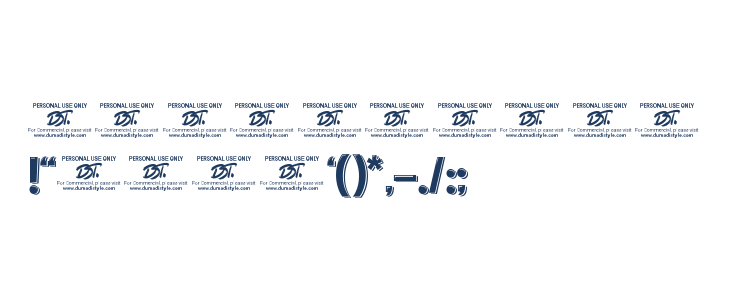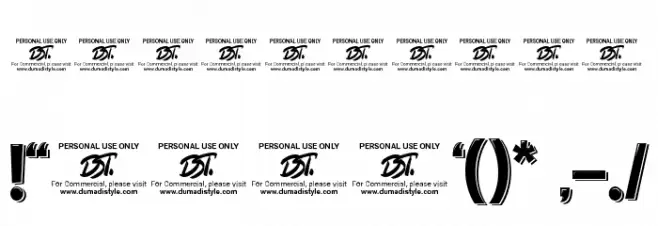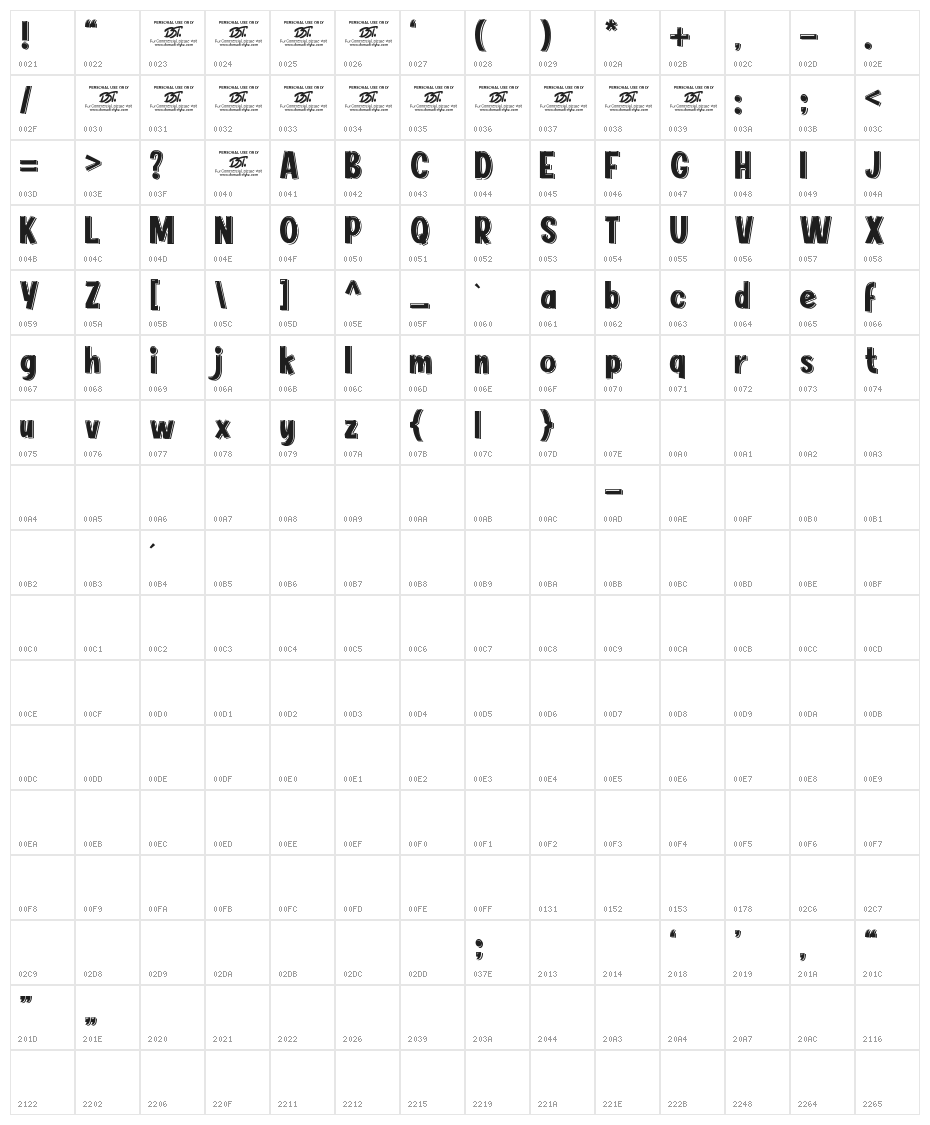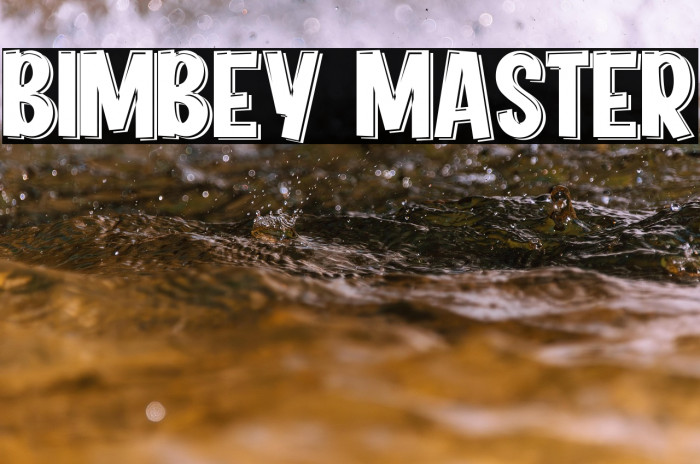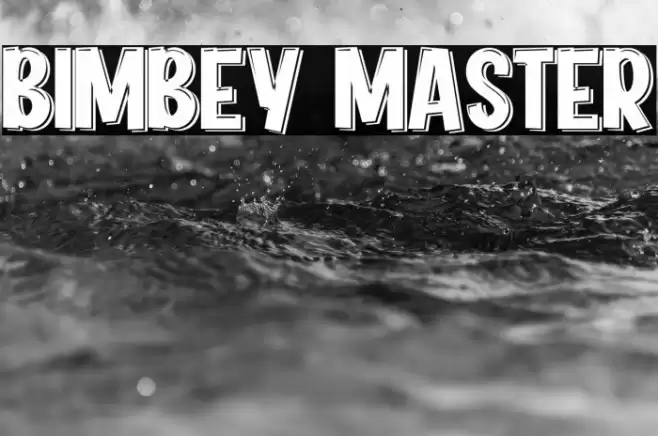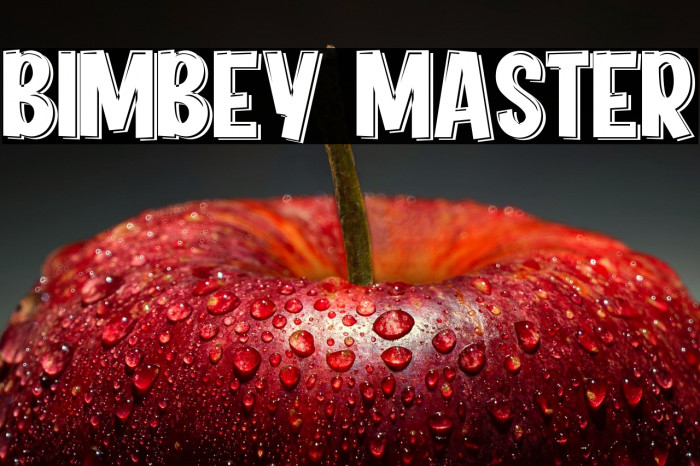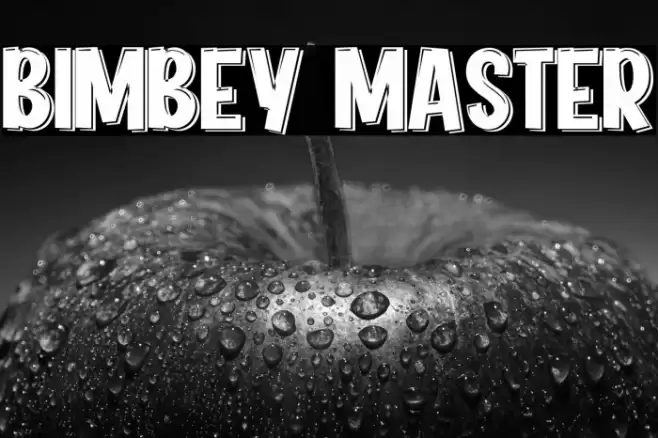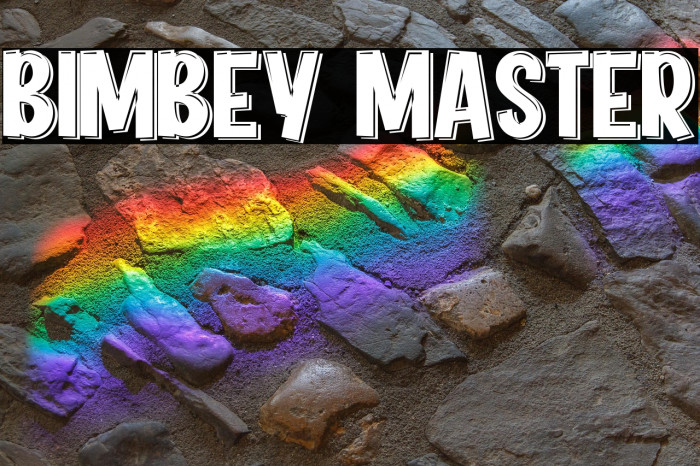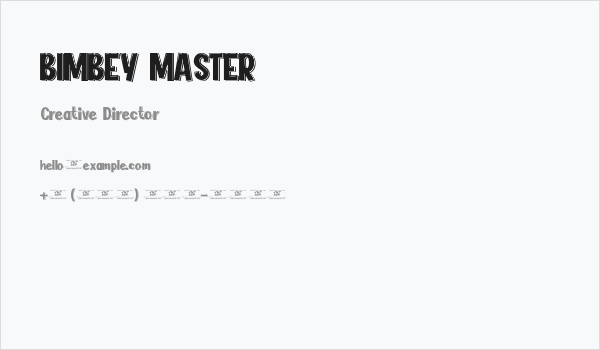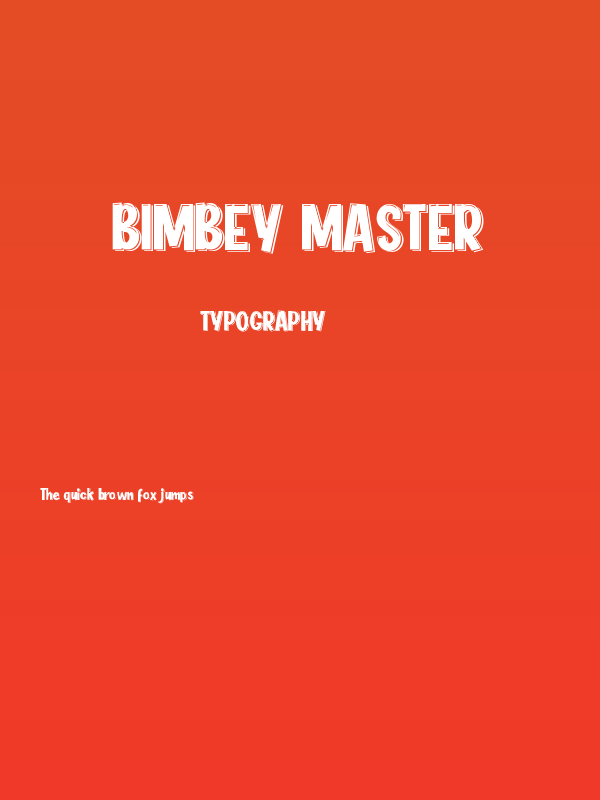
BIMBEY MASTER Font
BIMBEY MASTER Description
This font features a bold and dynamic style with a strong presence. The characters are thick and have a three-dimensional effect, giving them a shadowed appearance that adds depth. The uppercase and lowercase letters maintain a consistent weight, enhancing readability while providing a unique visual impact. The font includes a full set of uppercase and lowercase letters, numbers, and a selection of special characters. Its boldness and distinct style make it suitable for attention-grabbing designs.
Proposed ProjectsIdeal for posters, headlines, logos, and any design requiring a bold statement.